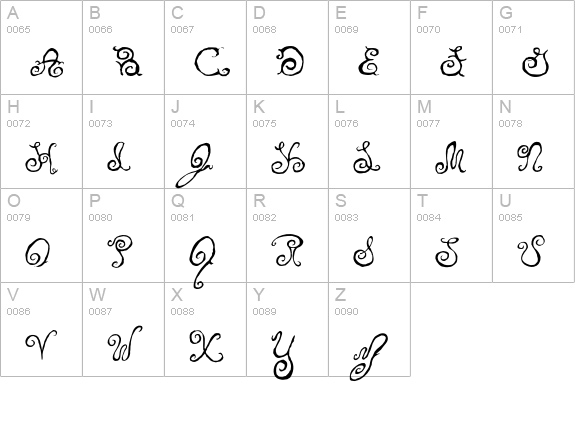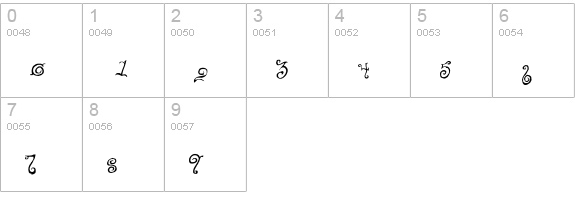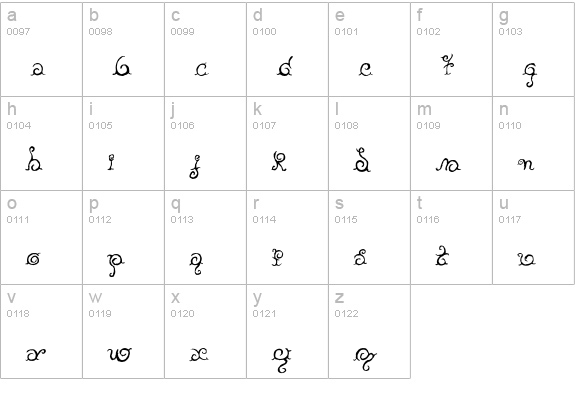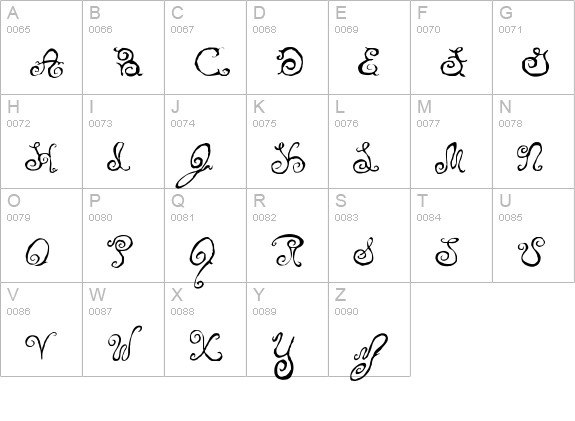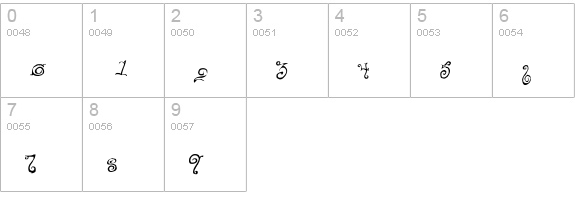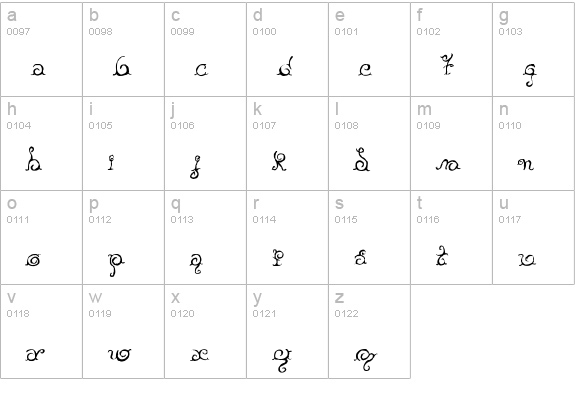
Yellow Font Details
Yellow font is a vibrant and eye-catching typeface that exudes energy and positivity. Its bold and playful design makes it perfect for adding a pop of color to any project. The cheerful yellow hue of this font is sure to brighten up any design and grab the viewer's attention. Whether you're creating posters, flyers, or social media graphics, Yellow font will make your message stand out. Best of all, this font is completely free to download at FontsMarket.com, so you can add a touch of sunshine to your designs without breaking the bank. Get your hands on Yellow font today and let your creativity shine!